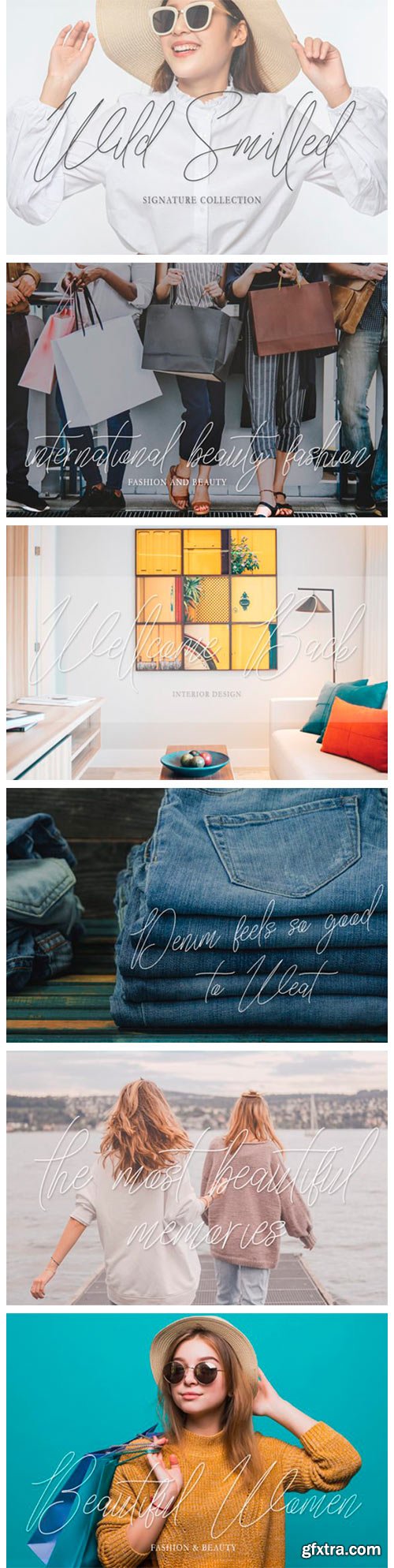
Wild Smilled Font
Wild Smilled is a sleek, signature script that will give your work instant class and style. Use this font for branding, logos, signatures, invitations and any other designs.